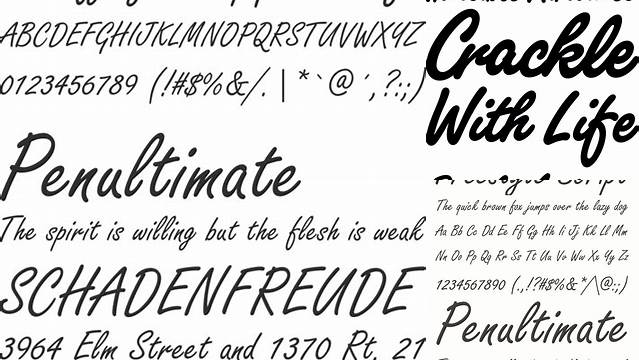
Free Freestyle Script Std Font: Download & Guide
What is Freestyle Script Std Font?
First things first, let's get acquainted with the star of the show: the Freestyle Script Std font. This font is a classic and elegant script typeface, renowned for its flowing and graceful letterforms. It’s a handwritten-style font that's been a favorite among designers for years, thanks to its versatility and charm. The Freestyle Script Std font, often simply referred to as Freestyle Script, is known for its fluid strokes and friendly appearance, making it ideal for a wide range of design projects. From invitations and greeting cards to logos and branding materials, this font adds a personal and artistic touch that can make your work stand out.
This font was originally designed by Colin Brignall and released by Letraset in 1981. Over the years, it has become a staple in the design world, widely used across various platforms and applications. Its popularity stems from its ability to convey both sophistication and approachability. Whether you’re aiming for a vintage look or a modern feel, Freestyle Script can adapt to your needs. You can find different variations of the font. Freestyle Script Std is one of the standard versions that's readily available, and you might also encounter other versions like Freestyle Script Bold or Freestyle Script Regular. Each version offers a slightly different character to the typeface, but all share the same core aesthetic. Understanding the origin and the various versions will provide you with a deeper appreciation for its design, functionality and use.
The beauty of Freestyle Script lies in its ability to mimic the appearance of handwritten text. This gives your designs a personal and authentic feel, which can be particularly effective in projects where you want to connect with your audience on a more emotional level. When used effectively, this font can add an element of sophistication and visual interest that can elevate your overall design. The font's design is distinctive and memorable, which helps you to craft designs that will truly leave an impression. When you are looking to evoke feelings of creativity, elegance, or intimacy, this font is sure to be a useful tool. You will also want to remember that the best design choices are the ones that best reflect what you are aiming to accomplish in your project.